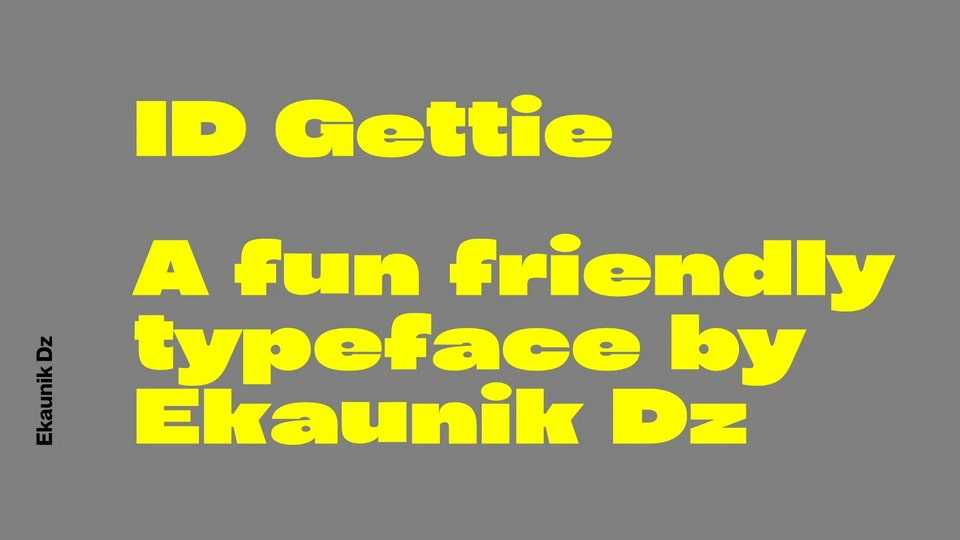
Download ID Gettie font, a friendly and versatile typeface that brings a fun vibe to your projects. With its playfulness and contemporary flair, ID Gettie is great for display projects.
Designer: Ekaunik Dz